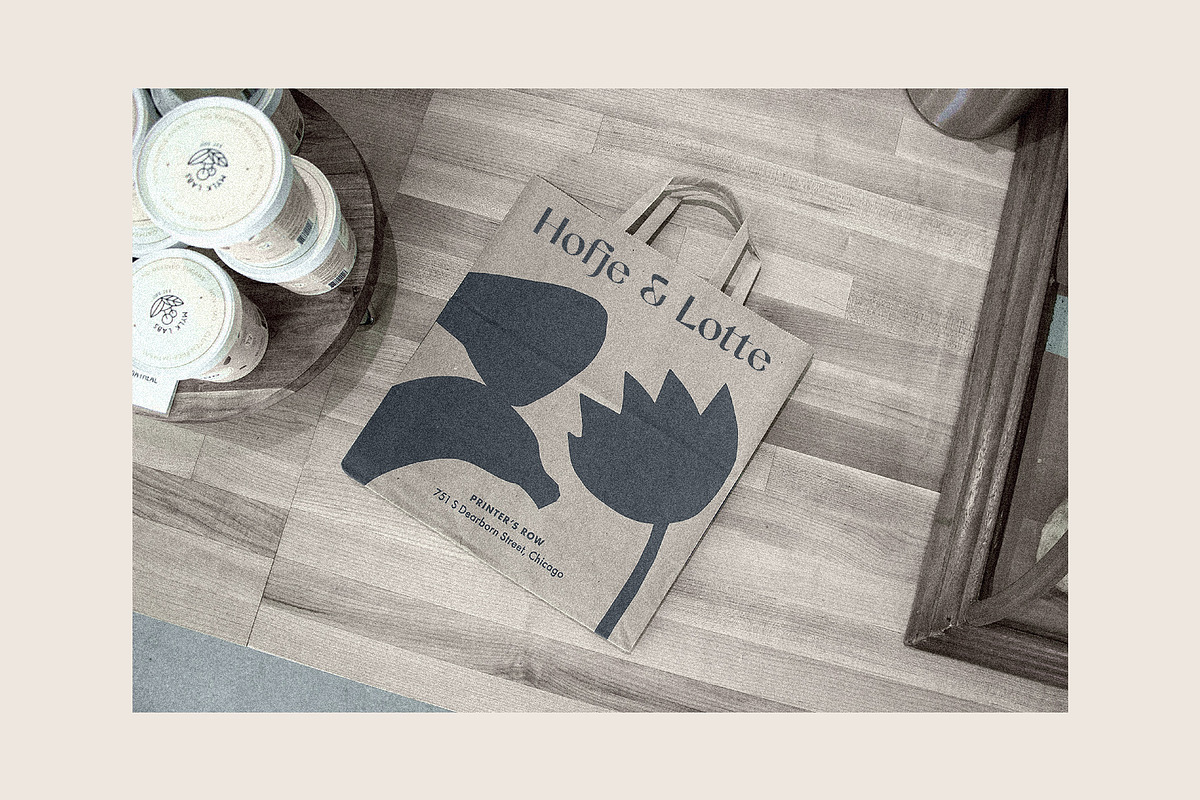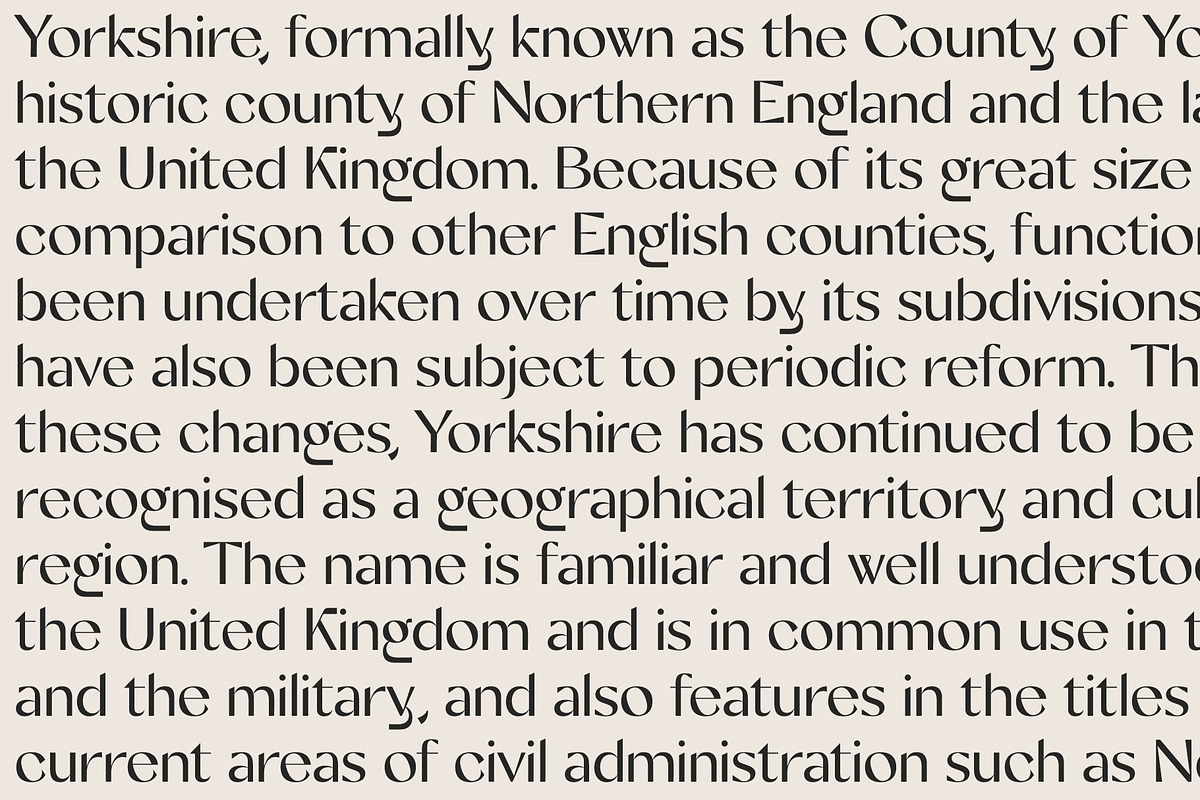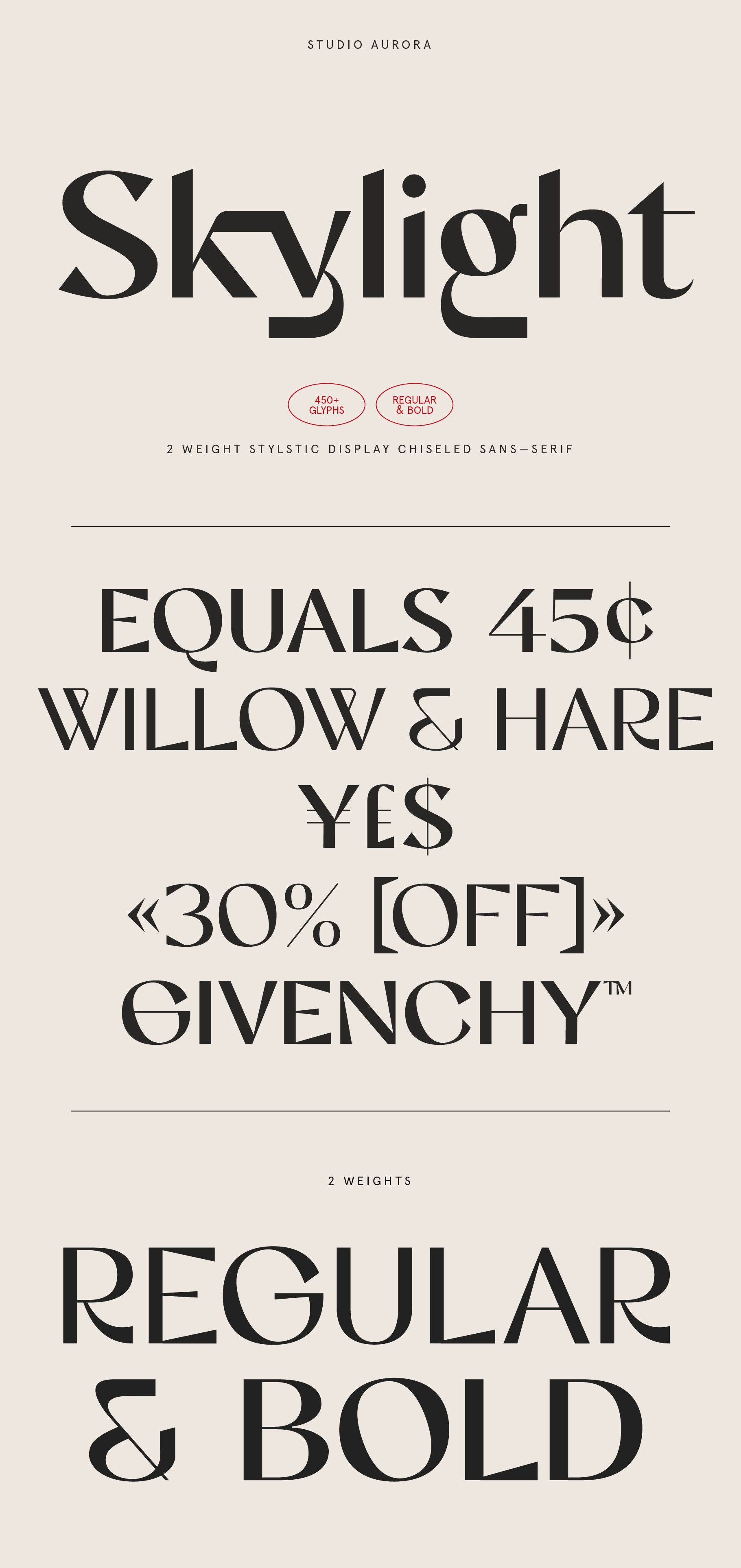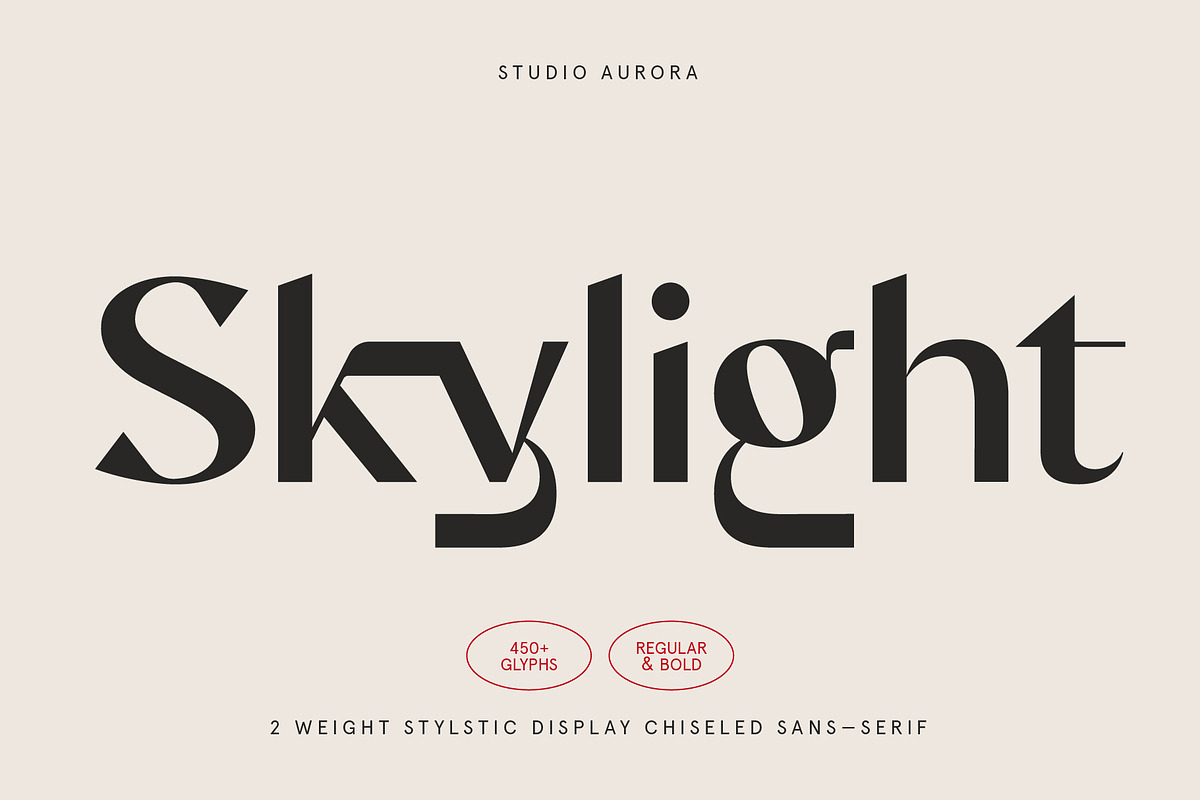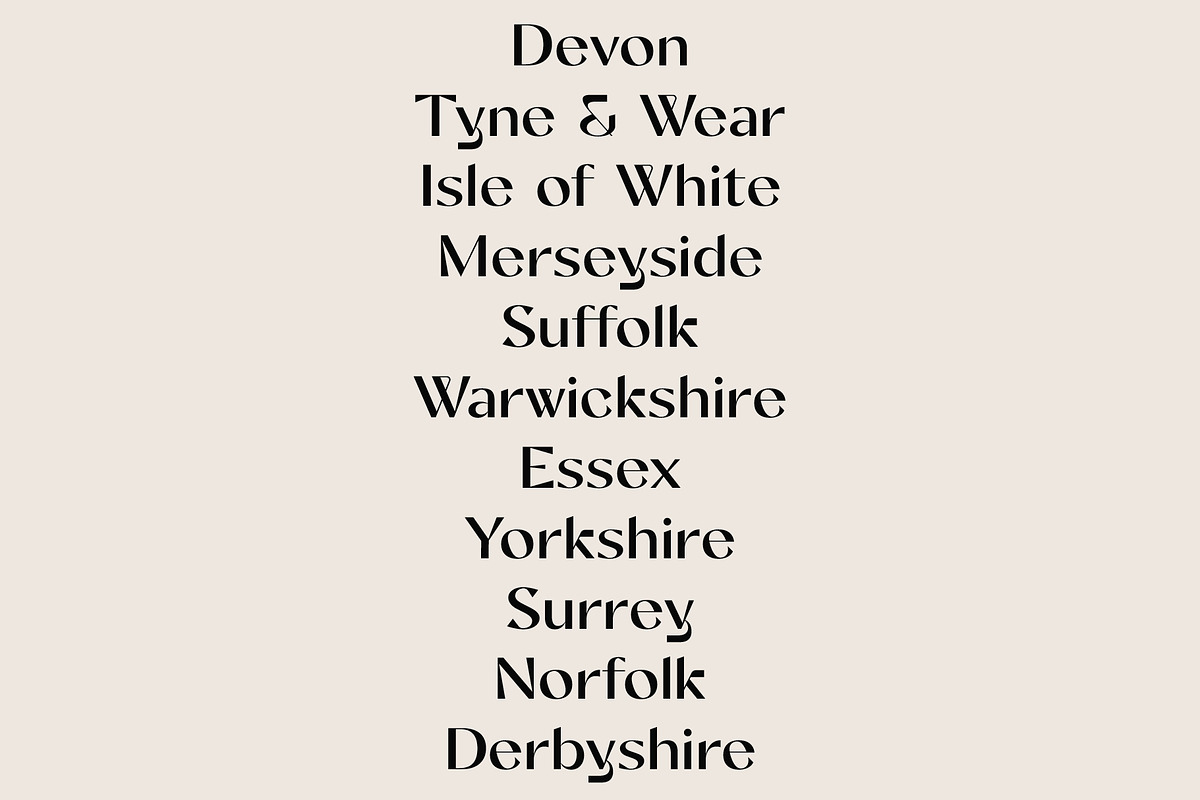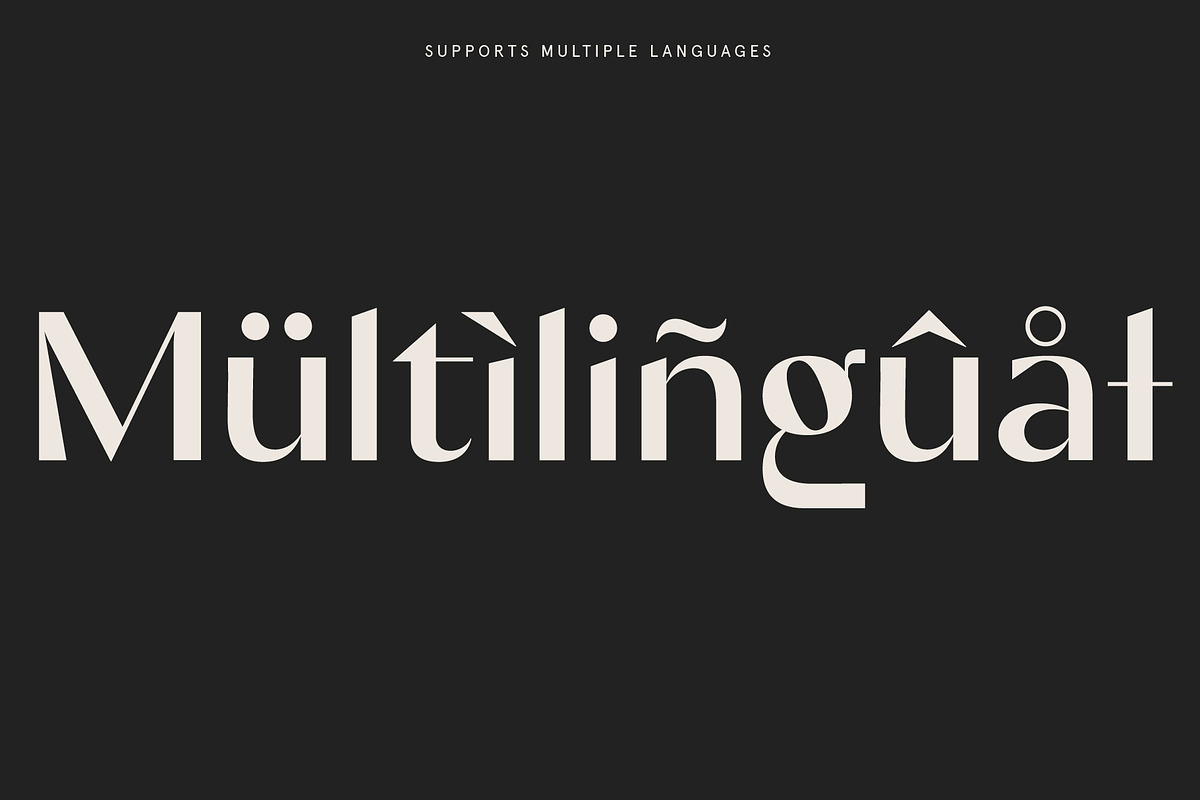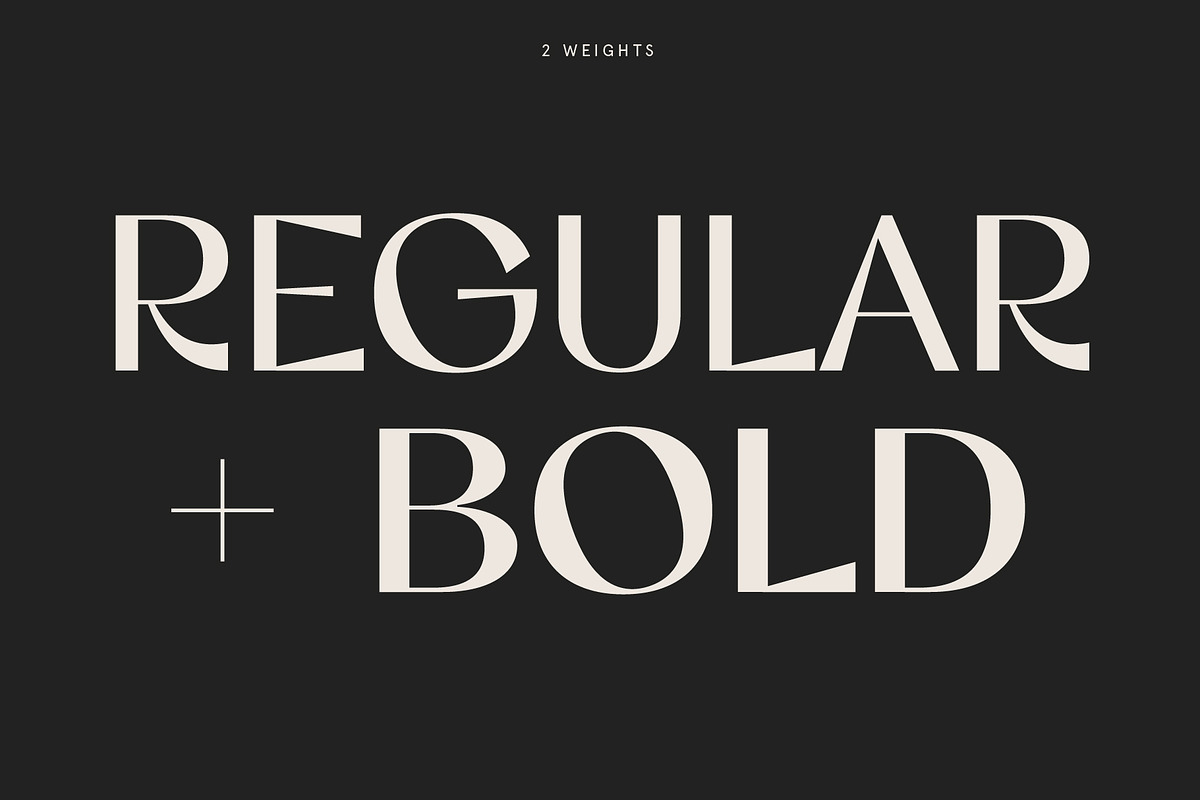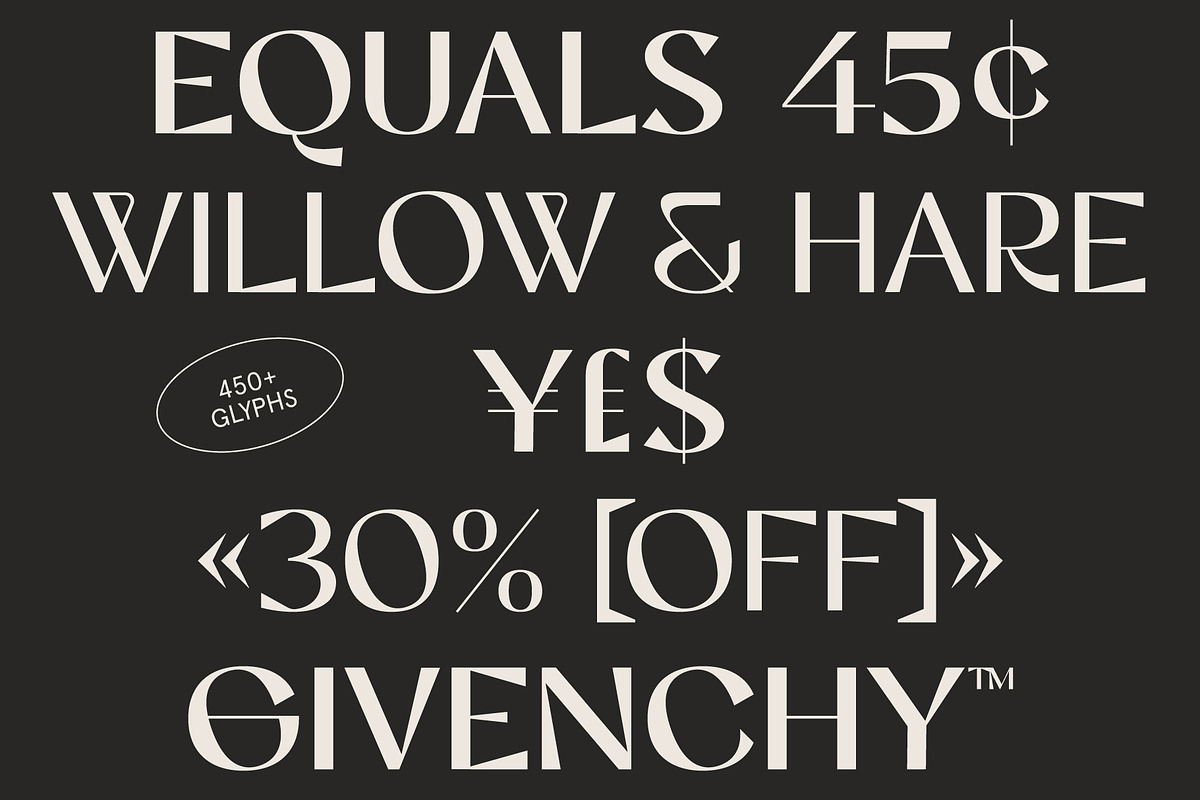
Skylight – Display Sans-Serif Font
Introducing our new typeface, Skylight - A modern, eye-catching display sans-serif font, that comes in two weights, uppercase and lowercase characters and is packed full of alternates and ligatures to create great variety in your designs.
This is primarily a display font (but can also be used for body copy) that we recommend using in the following types of work; magazines (titles and layouts), logos and branding, invitations, quotes, blog headers, posters, and advertising.
- 2 weights: Bold and Regular
- Uppercase and lowercase glyphs
- Alternate glyphs
- Standard and Discretionary Ligatures